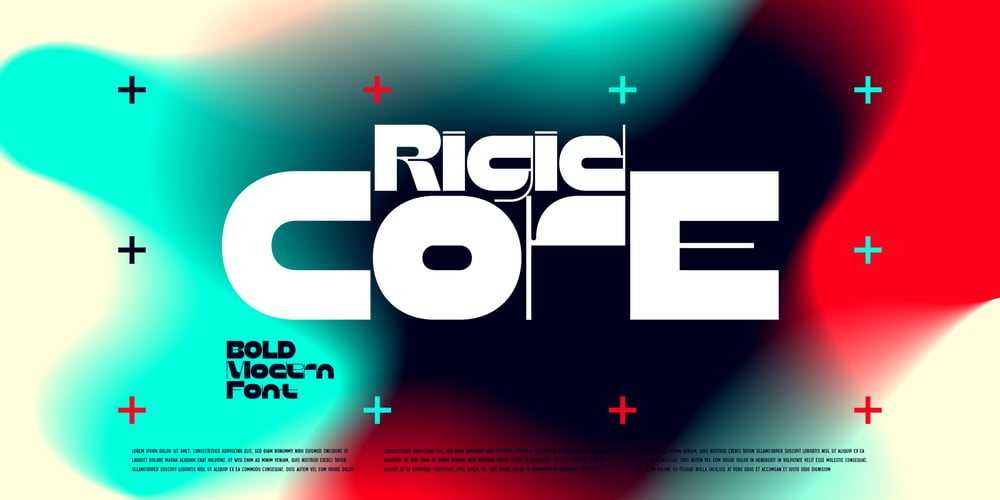
Rigid Core Font Family was designed by Gleb Guralnyk and published by Gleb Guralnyk. Rigid Core contains 1 styles and family package options. Hello! Presenting a modern bold font — Rigid Core. It’s a geometric typeface with massive shape and high contrast elements. Rigid Core font has multilingual support (check out a screenshot with available letters and signs).Thank you and wish you a peaceful sky!